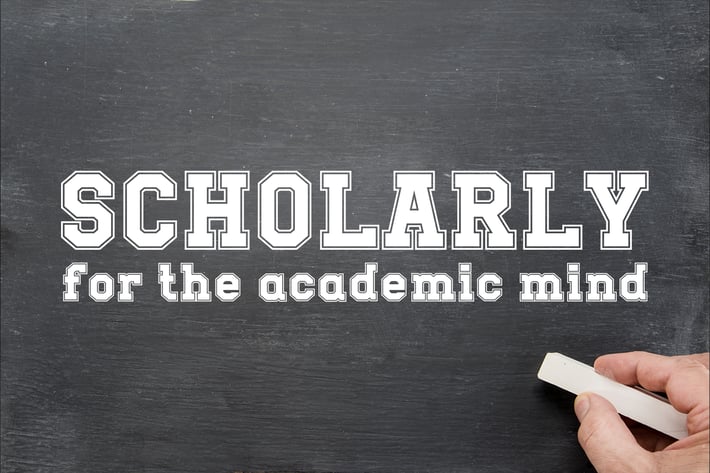
Scholarly Font
Scholarly - Classic Collegiate & Varsity Font
Introducing the Scholarly Font, a bold, collegiate-style typeface designed for the academic and athletic mind. Featuring a classic varsity block structure with a distinct inner-line detail, this slab-serif font brings an authentic, retro school-spirit vibe to any project. It is perfectly suited for college sports banners, graduation invitations, team jerseys, back-to-school promotional sales, and educational materials. The Scholarly Font includes a full set of uppercase and lowercase letters, numbers, and punctuation, giving you everything you need to create winning designs.
Unique letterforms